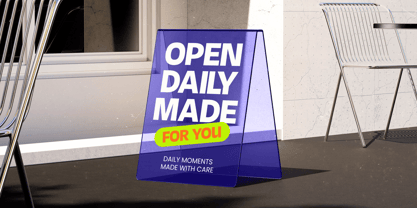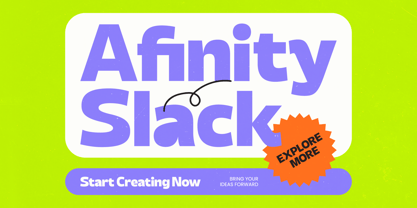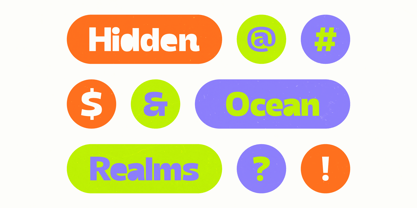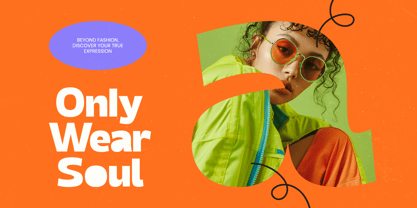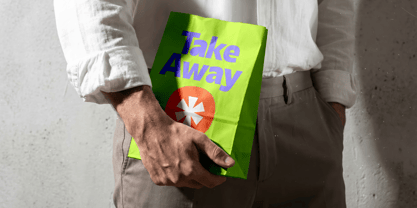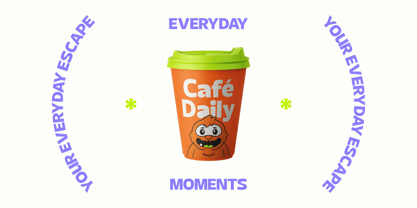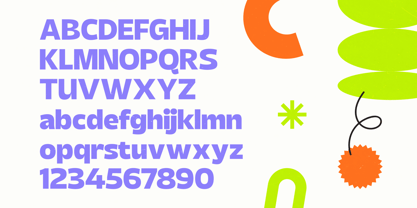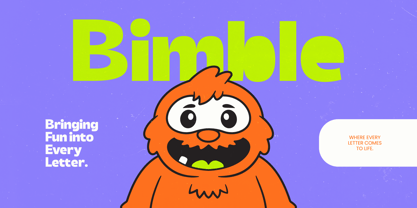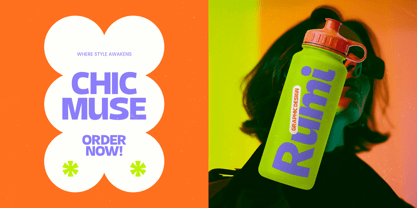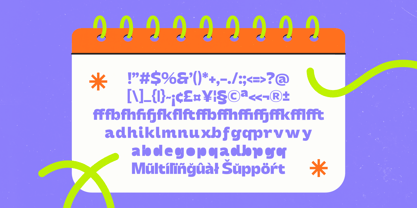
Afinity Slack
von Timelesstype Studio
Die Schriftfamilie Afinity Slack wurde von Heru Utama Putra entworfen und von Timelesstype Studio veröffentlicht. Afinity Slack enthält 2 Stile und Familienpaketoptionen. Mehr über diese Familie
Redefine modern impact with a typeface that balances power and playfulness. Afinity Slack - Bold Sans Serif is a masterpiece of contemporary typography, offering a heavyweight aesthetic that commands attention instantly. Its clean geometric lines are softened by subtle organic curves, creating a bold visual presence that is both professional and approachable. The inclusion of artistic alternates and custom ligatures ensures that every design remains distinct, making Afinity Slack - Bold Sans Serif a versatile asset for any creative toolkit.